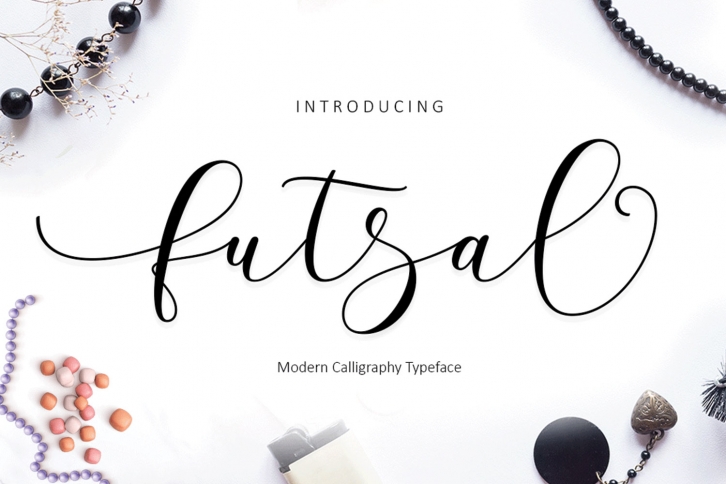
Futsal Script is a beautiful font that was designed by Moriztype. It's a great choice for designers and creatives who need such a font. It was released on October 23, 2017 and the file size is 14.24 MB. Futsal Script may give a more youthful, expressive and casual look to your project. It is a very beautiful, refined, elegant, and high-quality font.